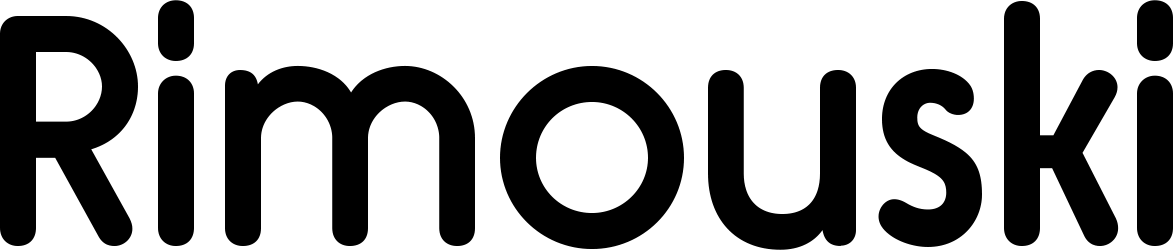
Rimouski Font
Make use of this particular sans serif font, that’s rounded, modern, and simple. The characters are bold, playful, and attractive and they give your typography a friendly feel. Rimouski has a very easy and enjoyable read. The letterforms available for this font are mixed case alphabets, numbers, and symbols.
Rimouski is an excellent choice especially if you would like to make use of it for, books, websites, cartoons, movies, and posters. Furthermore, apps, UI designs, packaging, and adverts, are considerable places.
Rimouski is a rounded geometric typeface with a refined appearance. Its appealing letterforms and soft, precise points will add a sophisticated aesthetic to your projects. Use the OpenType “stylistic alternates” function to generate a slew of oddly angled characters. Rimouski is available in five different weights and italics. Most Latin-based European writing systems are supported, including the following languages. Afaan Oromo, Afar, Afrikaans, Albanian, Alsatian, Aromanian, Aymara, Bashkir (Latin), Basque, Belarusian (Latin), Bemba, Bikol, Bosnian, Breton, Cape Verdean, Creole, Catalan, Cebuano, Chamorro, Chavacano, Chichewa, Crimean Tatar (Latin), Croatian, Czech, Danish, Dawan, Dholuo, Dutch, English, Estonian, Faroese, Fijian, Filipino, Finnish, French, Frisian, Friulian, Gagauz (Latin), Galician, Ganda, Genoese, German, Greenlandic, Guadeloupean Creole, Haitian Creole, Hawaiian, Hiligaynon, Hungarian, Icelandic, Ilocano, Indonesian, Irish, Italian, Jamaican, Kaqchikel, Karakalpak (Latin), Kashubian, Kikongo, Kinyarwanda, Kirundi, Kurdish (Latin), Latvian, Lithuanian, Lombard, Low Saxon, Luxembourgish, Maasai, Makhuwa, Malay, Maltese, Māori, Moldovan, Montenegrin, Ndebele, Neapolitan, Norwegian, Novial, Occitan, Ossetian (Latin), Papiamento, Piedmontese, Polish, Portuguese, Quechua, Rarotongan, Romanian, Romansh, Sami, Sango, Saramaccan, Sardinian, Scottish Gaelic, Serbian (Latin), Shona, Sicilian, Silesian, Slovak, Slovenian, Somali, Sorbian, Sotho, Spanish, Swahili, Swazi, Swedish, Tagalog, Tahitian, Tetum, Tongan, Tshiluba, Tsonga, Tswana, Tumbuka, Turkish, Turkmen (Latin), Tuvaluan, Uzbek (Latin), Venetian, Vepsian, Võro, Walloon, Waray-Waray, Wayuu, Welsh, Wolof, Xhosa, Yapese, Zapotec Zulu and Zuni.